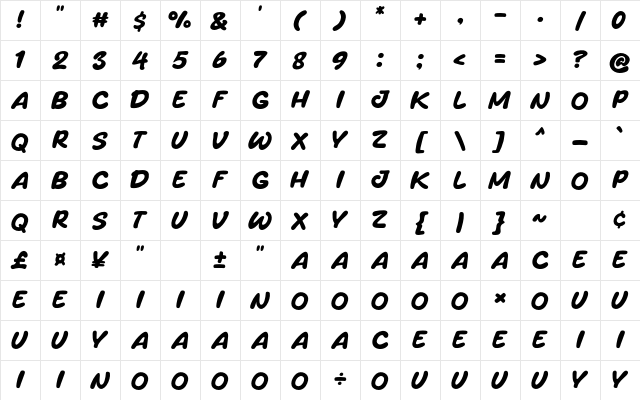
Waytoon Regular Free Font
Waytoon Regular
Foundry: Khurasan
Designer: Khurasan
Design Context for Waytoon
Waytoon is a composed and adaptable typeface that performs quietly and consistently across a wide range of design contexts.